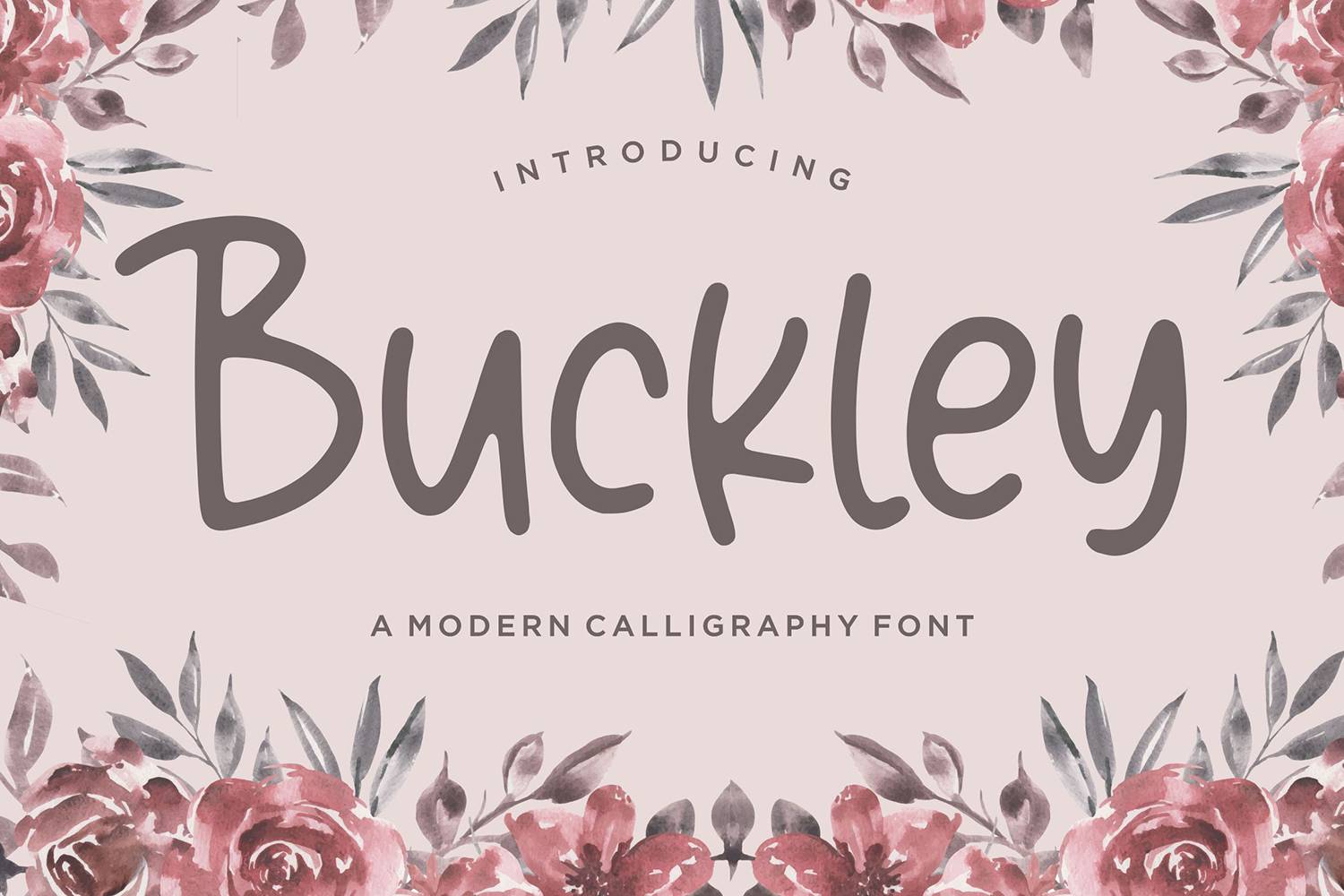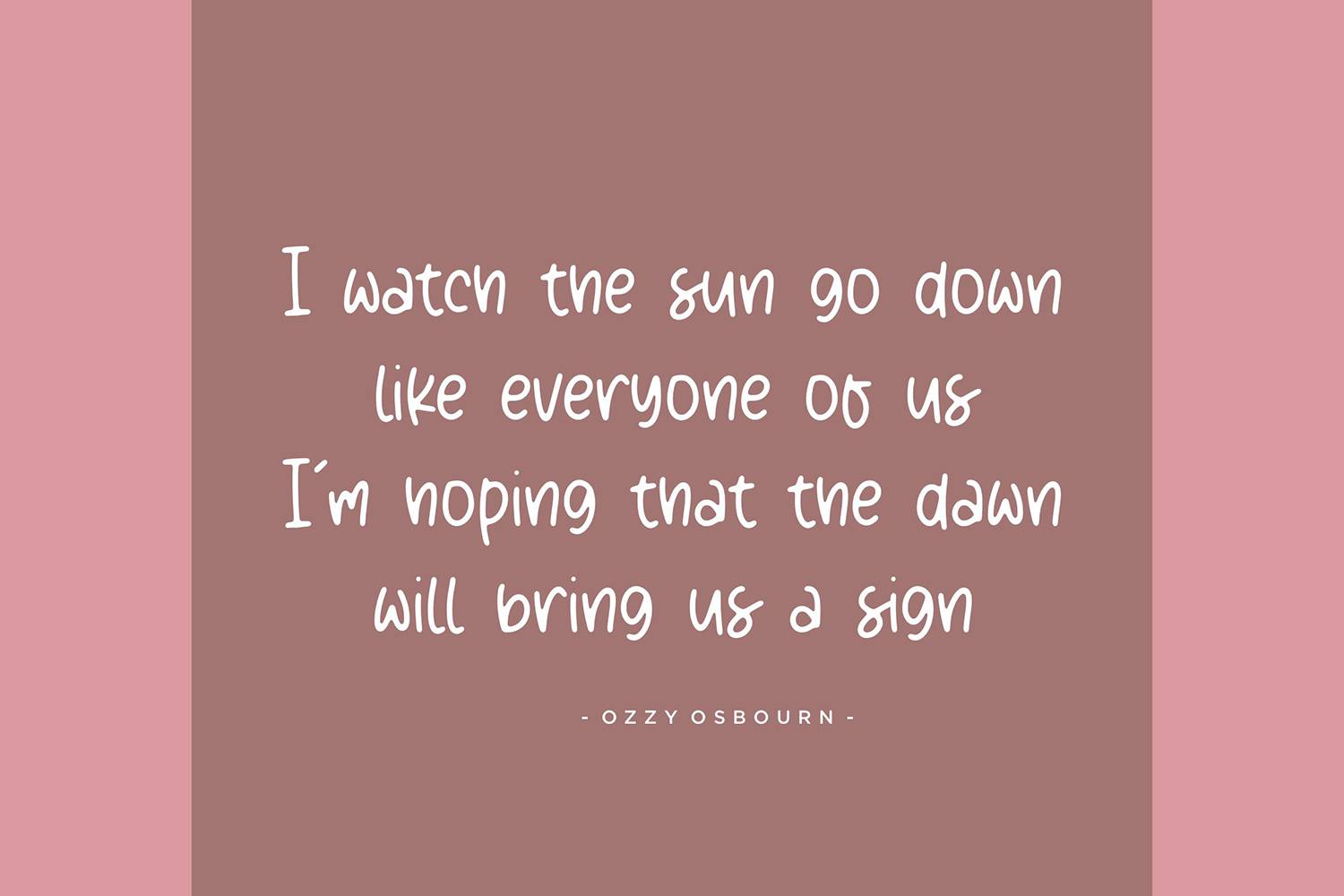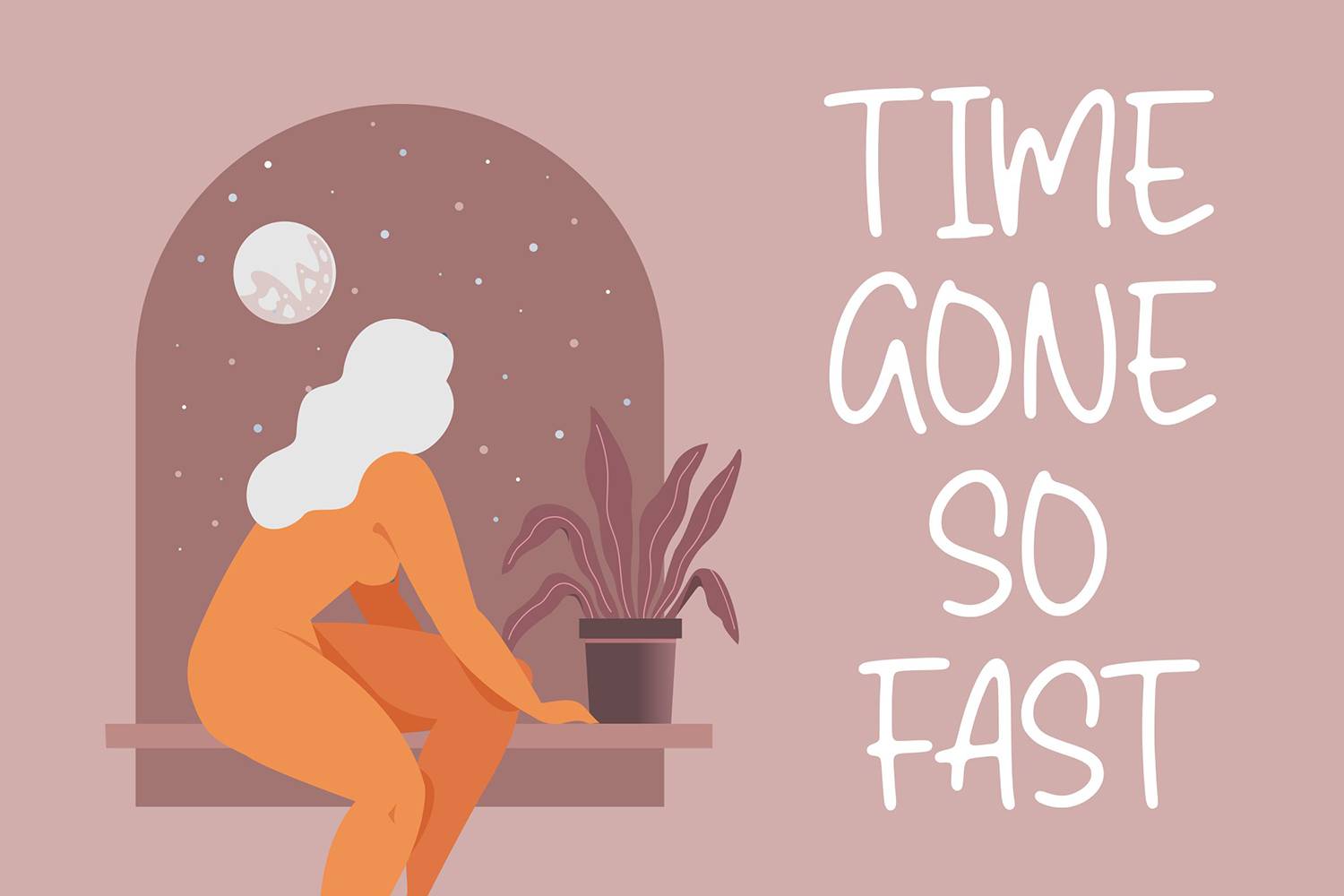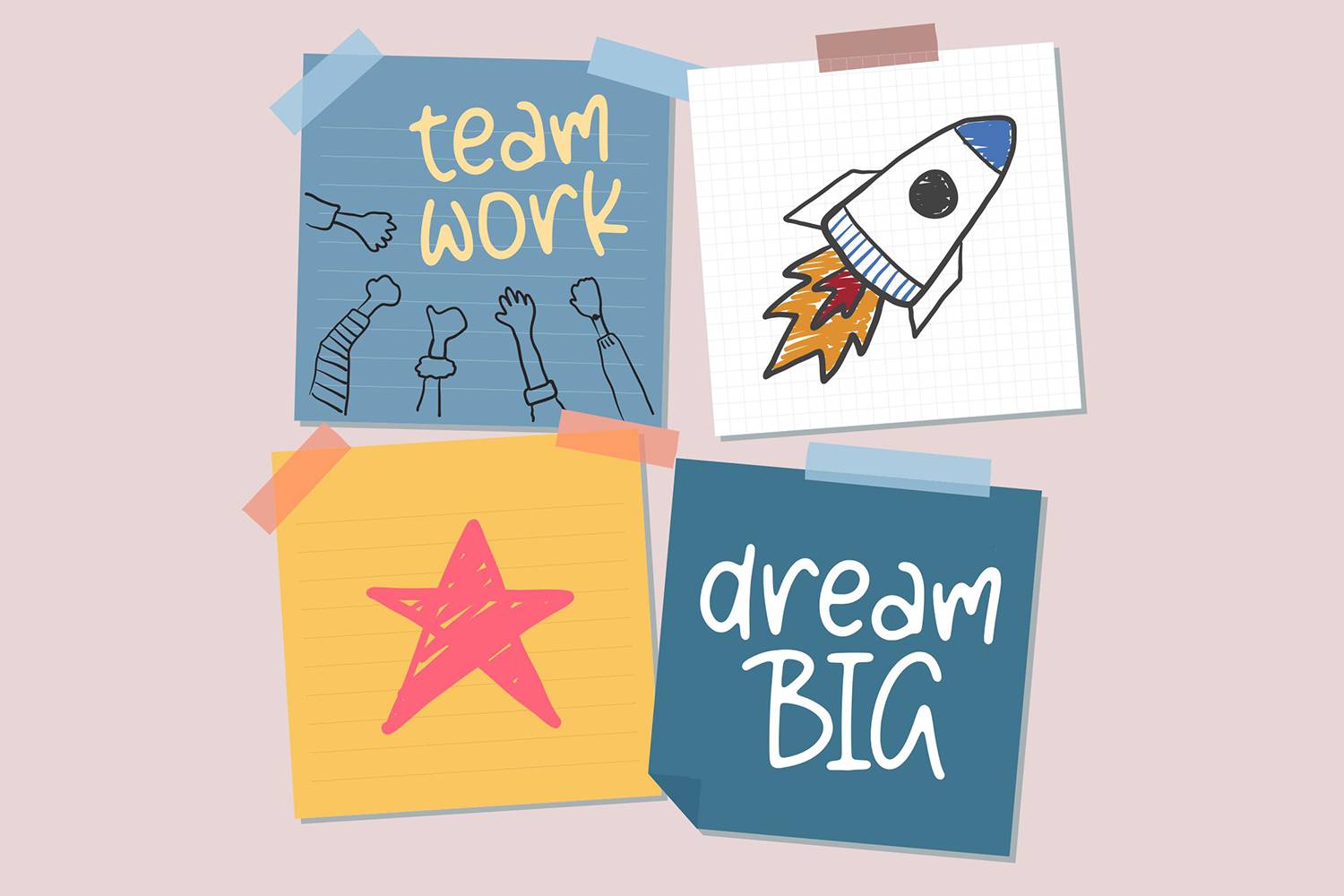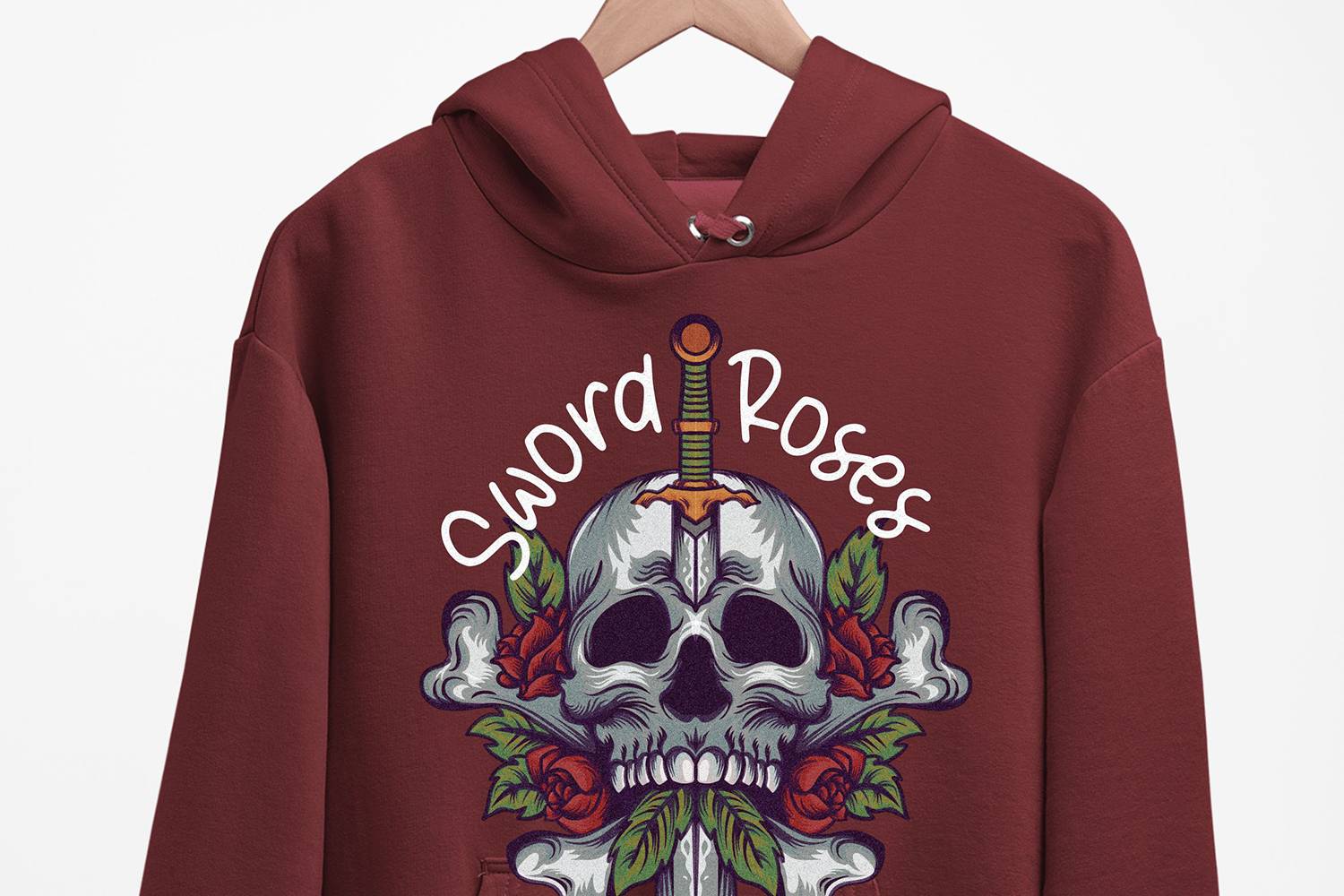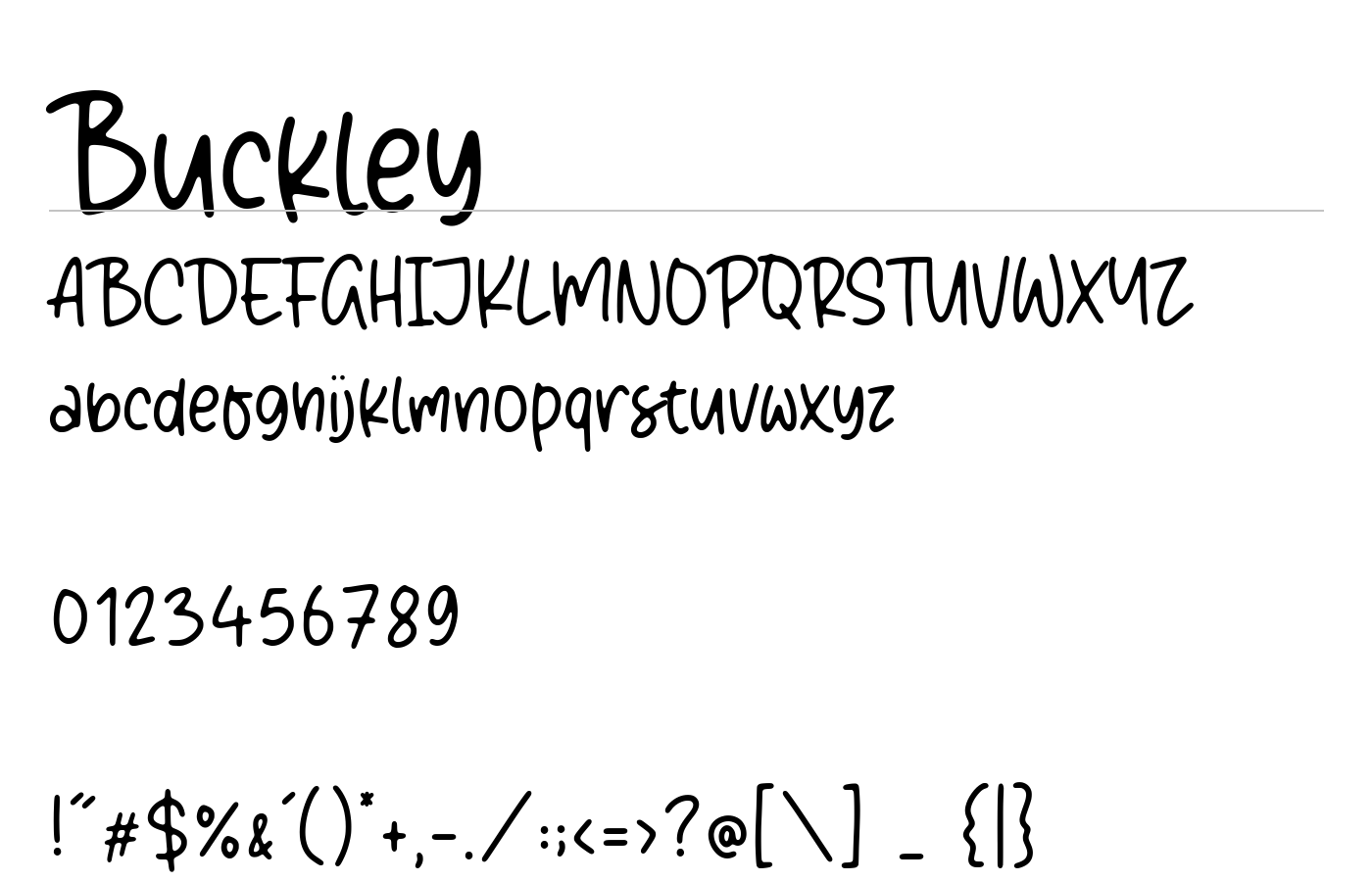
Buckley Modern is a playful, casual handwritten font with a friendly and approachable feel. Its moderately tall x-height, slightly irregular stroke width, and quirky letter shapes make it perfect for informal branding, children’s content, or creative projects seeking a warm, personal touch. This font works well in logos, headlines, and packaging where a cheerful, humanistic style is desired.
Buckley Modern Font
About Buckley Modern Font